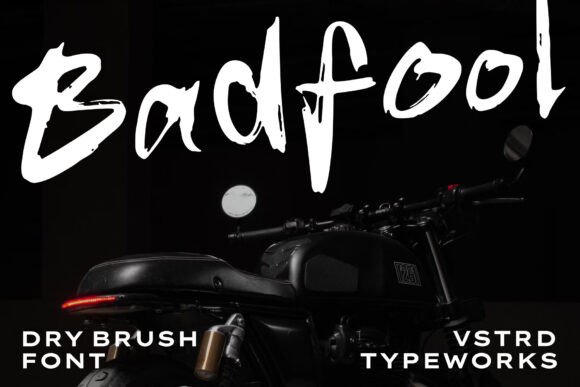
Introducing Badfool – Dry Brush Scribble Font
Are you looking for a unique and creative font to elevate your design projects? Look no further than Badfool, a dry handwritten scribble brush font that is sure to capture attention. With its detailed texture and versatile uses, Badfool is the perfect addition to any designer’s toolkit.
What is Badfool Font?
Badfool is a dry handwritten scribble brush font that boasts a distinctive, hand-scribbled look. This font is perfect for designers who want to add a personal touch to their work, whether it’s for logos, product branding, printable templates, posters, flyers, shirts, or text overlay on any background image.
The texture of Badfool is very detailed, giving it a realistic and authentic feel. The font comes in uppercase, lowercase, with punctuation and numerals, making it a comprehensive and practical choice for a wide range of design applications.
Uses of Badfool Font
Badfool font is incredibly versatile and can be used in a variety of design projects, including:
- Logos: Create a unique and memorable logo for your business or brand with Badfool’s distinctive scribble texture.
- Product Branding: Add a personal touch to your product packaging and branding with Badfool’s hand-scribbled look.
- Printable Templates: Use Badfool to create eye-catching printable templates for flyers, brochures, and other marketing materials.
- Posters: Make a statement with bold and colorful posters featuring Badfool’s detailed texture.
- Flyers: Create attention-grabbing flyers for events, promotions, and sales with Badfool’s scribble font.
- Shirts: Design custom t-shirts, hoodies, and other apparel with Badfool’s unique texture.
- Text Overlay: Use Badfool to add text overlay to any background image, creating stunning visual effects.
Benefits of Using Badfool Font
So why choose Badfool font for your design projects? Here are just a few benefits:
- Unique Look: Badfool’s hand-scribbled texture gives your designs a distinctive and eye-catching look that sets them apart from the competition.
- Versatility: With its comprehensive character set and versatile uses, Badfool is a practical choice for a wide range of design applications.
- High-Quality Texture: Badfool’s detailed texture ensures that your designs look professional and high-quality.
Tips for Using Badfool Font
To get the most out of Badfool font, here are a few tips:
- Experiment with Colors: Try pairing Badfool with different colors and textures to create unique visual effects.
- Play with Size: Experiment with different font sizes to create visual interest and hierarchy in your designs.
- Combine with Other Fonts: Try pairing Badfool with other fonts to create a unique and eye-catching typography.
- Use on Different Backgrounds: Experiment with using Badfool on different background images and textures to create stunning visual effects.
In conclusion, Badfool font is a unique and versatile dry handwritten scribble brush font that is perfect for designers looking to add a personal touch to their work. With its detailed texture, comprehensive character set, and easy-to-use design, Badfool is a practical choice for a wide range of design applications. Whether you’re creating logos, product branding, printable templates, posters, flyers, shirts, or text overlay, Badfool is sure to capture attention and elevate your designs.